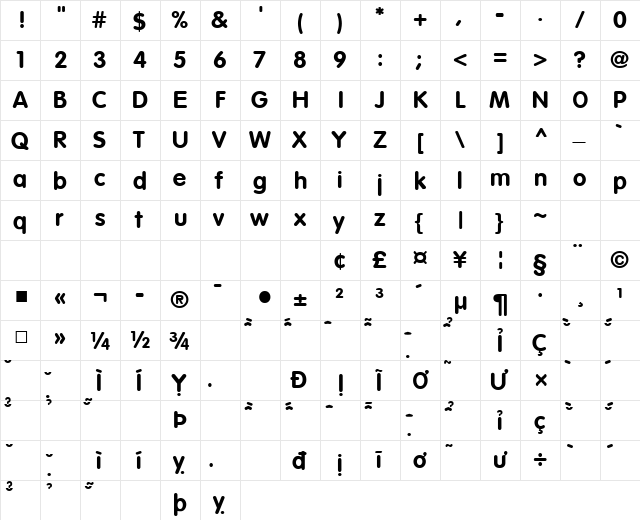
VNI-Vari Bold Font Preview
VNI-Vari Bold
Design Context for VNI-Vari Typeface
VNI-Vari takes a measured approach to typography — its balanced proportions and neutral character make it a reliable workhorse for both digital and print work. Its bold stroke weight gives it real presence on the page.